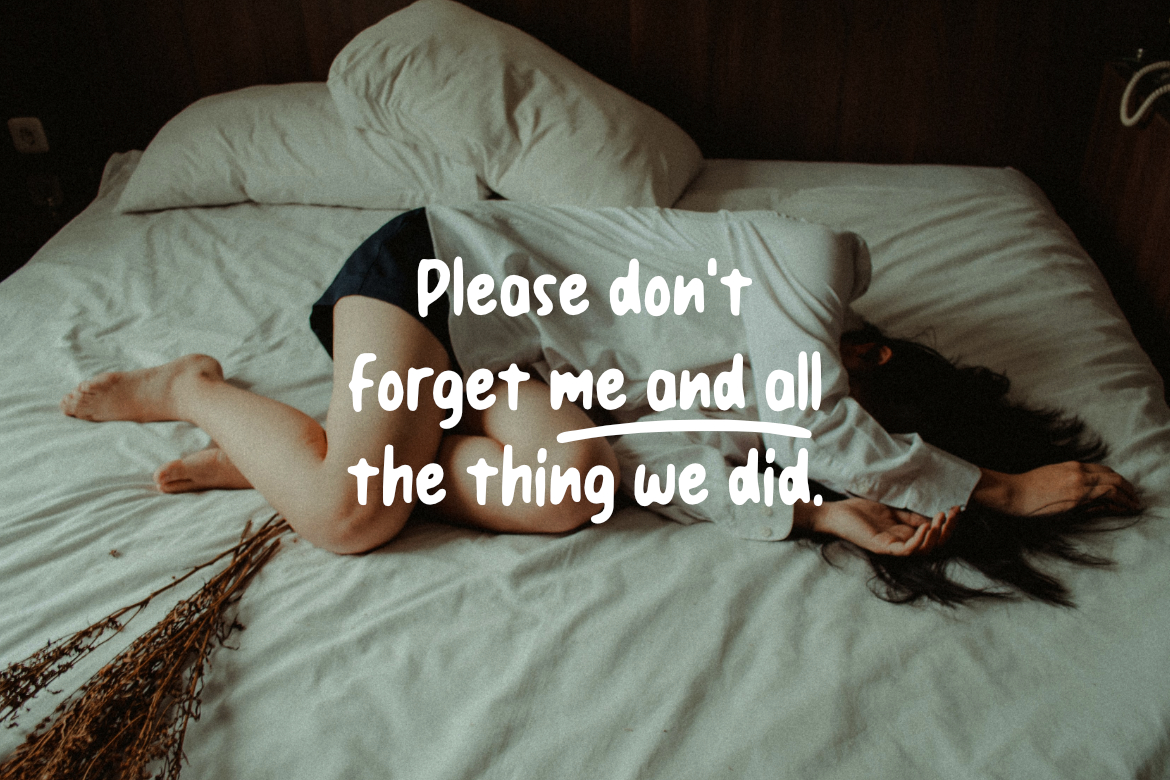
Organic Peach
Organic Peach – Blurred Handwritten Fonts
Is a natural handwritten font with a blur effect making this font look smooth and simple. Suitable for use in design projects such as quotes, social media posts, branding, merchandise, posters, cover and much more which you can make with this great item for any design.
- Features: Uppercase, Lowercase, Numeral, Punctuation, Multilingual, Elements & PUA Encoded.